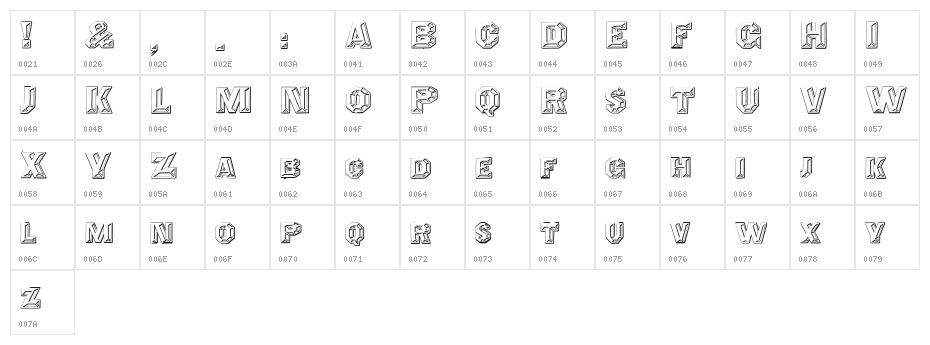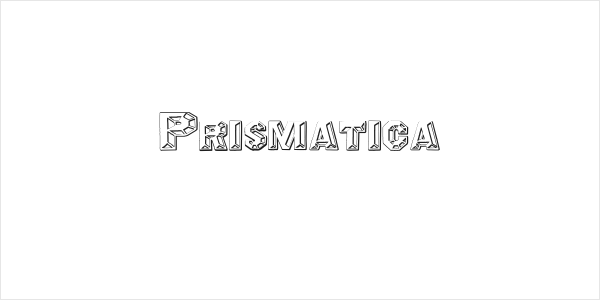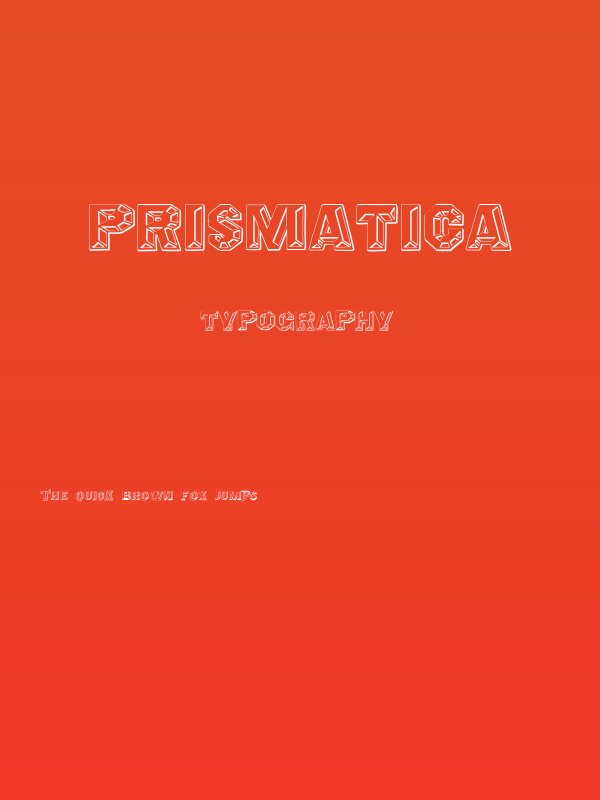
Prismatica Font
Prismatica Description
This font features a bold, geometric design with a three-dimensional effect, giving each character a prismatic appearance. The letters are constructed with sharp angles and facets, creating a sense of depth and complexity. The style is highly decorative, making it stand out with its intricate patterns and bold outlines. The uppercase letters are consistent in their angular design, while the special characters maintain the same prismatic theme. This font is visually striking and designed to capture attention with its unique, multifaceted look.
| Overall Style | Modern, Decorative |
| Proposed Projects | Ideal for projects that require a standout, decorative typeface such as posters, logos, album covers, or any creative work that benefits from a bold visual impact. |